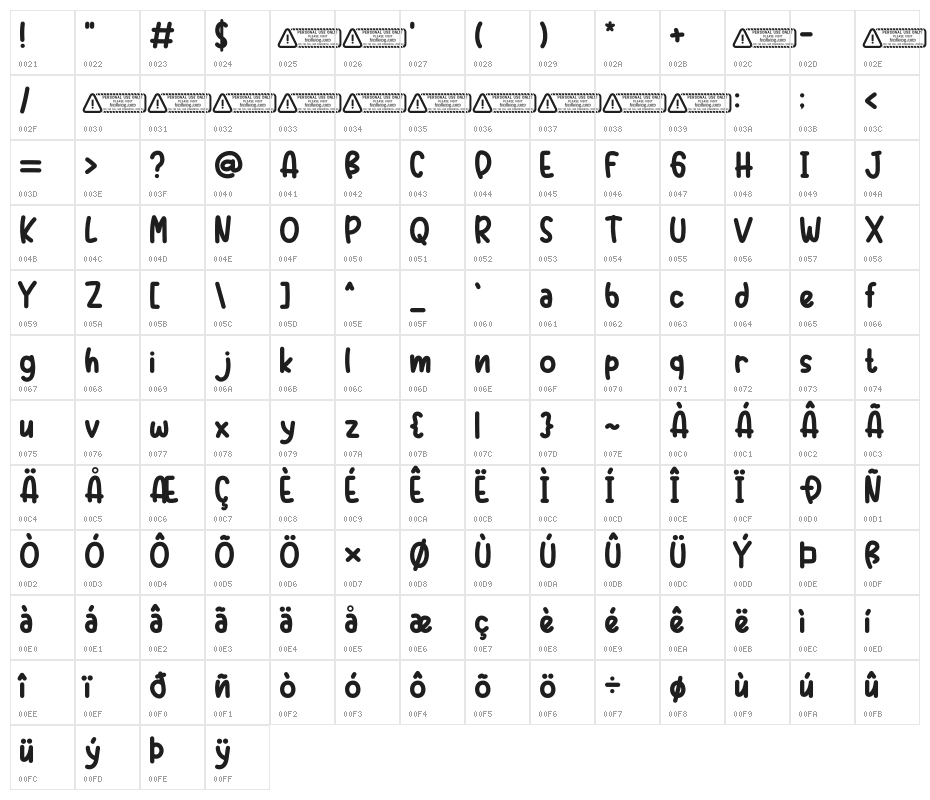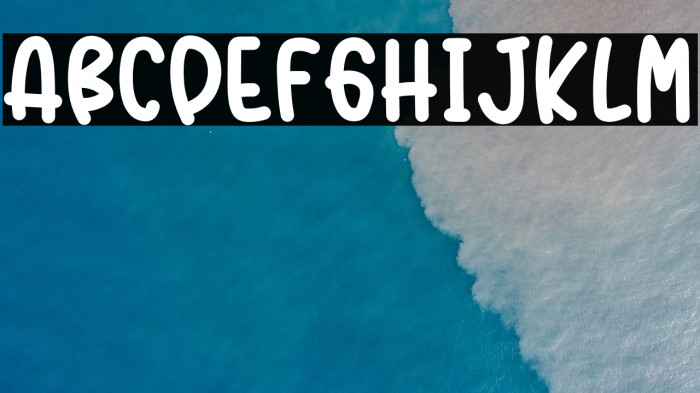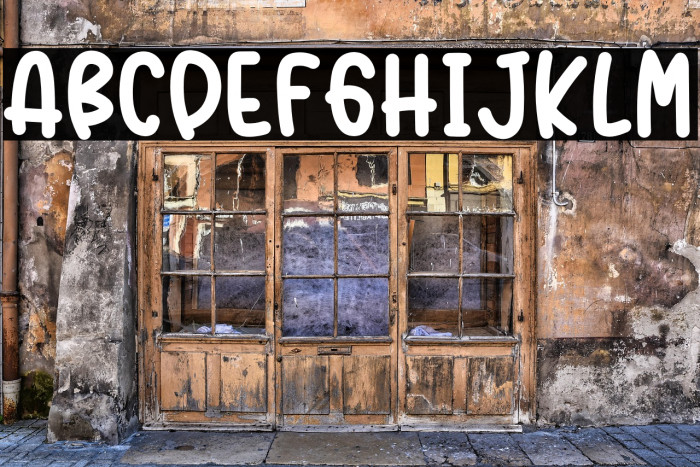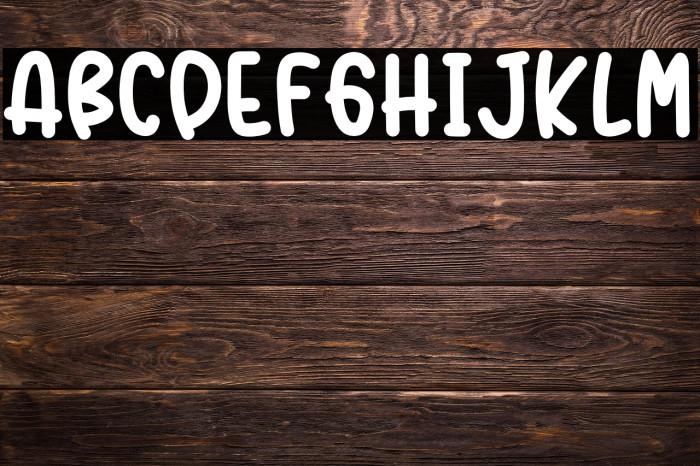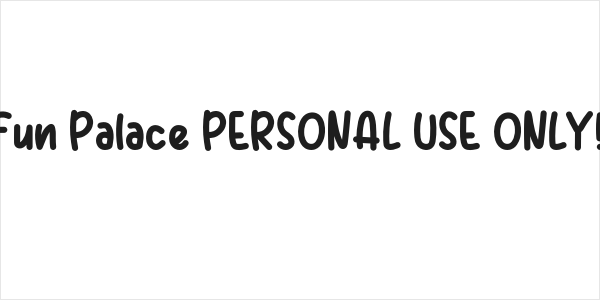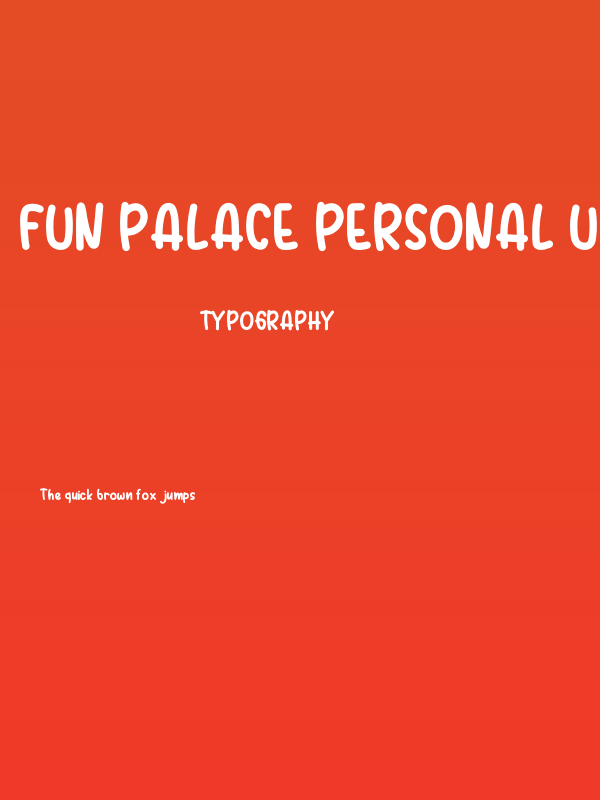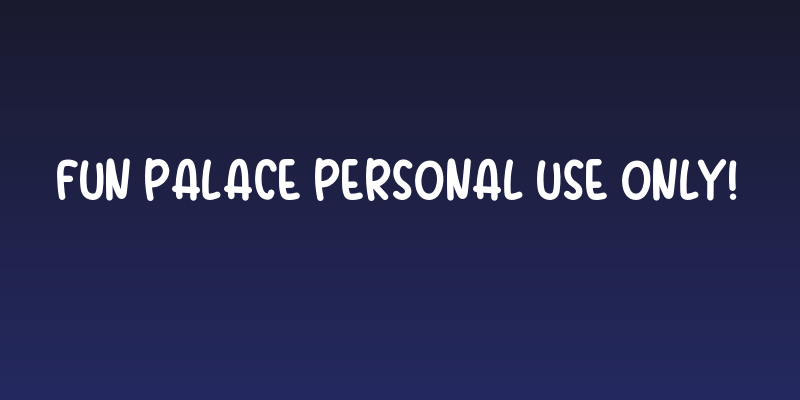
Fun Palace PERSONAL USE ONLY! Font
Fun Palace PERSONAL USE ONLY! Description
This playful and whimsical font features bold, rounded characters with a hand-drawn appearance. The letters are slightly irregular, giving them a casual and friendly feel. The uppercase and lowercase letters maintain a consistent style, with smooth curves and a uniform thickness throughout. The numbers and special characters follow the same design principles, ensuring a cohesive look. This font's unique style makes it suitable for projects that require a fun and informal touch.
| Proposed Projects | Ideal for children's books, playful branding, greeting cards, and casual invitations. |